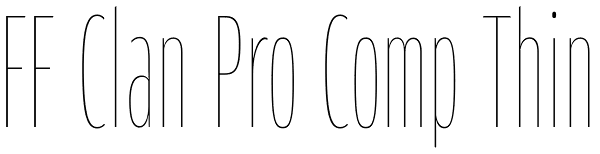
FF Clan Pro
Polish type designer Lukasz Dziedzic created this sans FontFont between 2006 and 2008. The family has 84 weights, ranging from Thin to Ultra in Compressed, Condensed, Narrow, Medium, Wide, and Extended (including italics) and is ideally suited for...